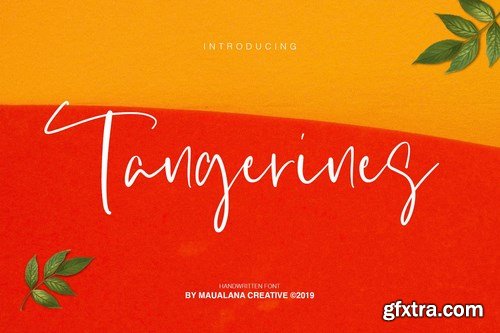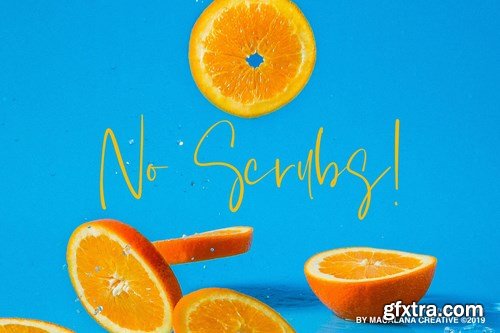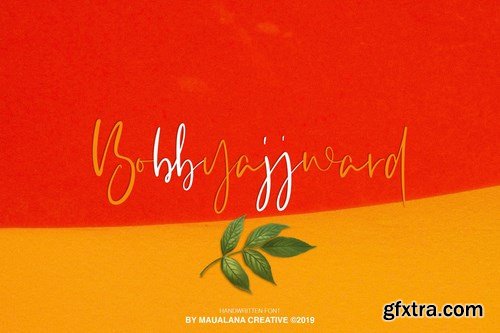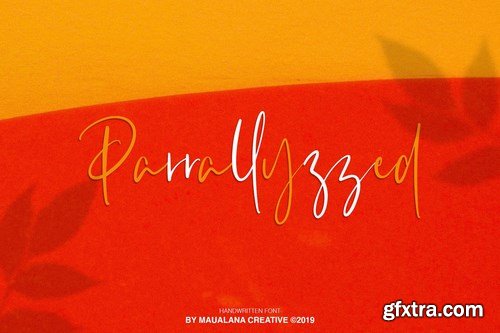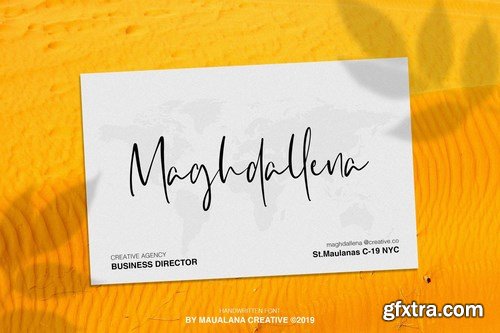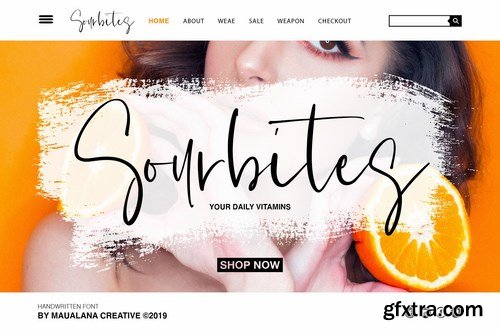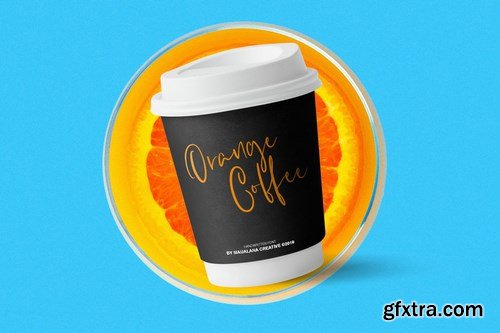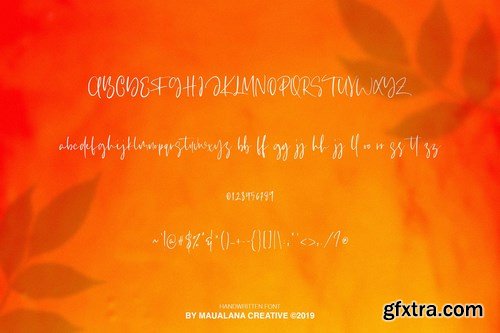
Give your designs an authentic handcrafted feel. “Tangerines” is perfectly suited to signature, stationery, logo, typography quotes, magazine or book cover, website header, clothing, branding, packaging design and more. Included Ligatures.